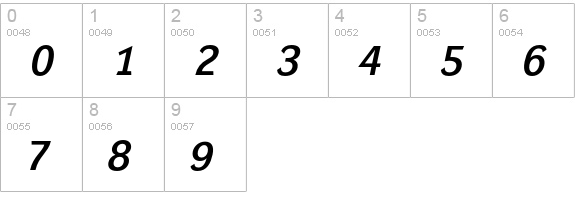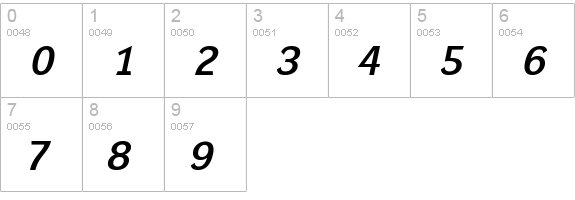
Dynamo Italic D E is a distinctive, italic variant in the Dynamo typeface family \xE2\x80\x94 well suited to design and typography projects.
Introducing Dynamo Italic D E font, a sleek and stylish typeface that exudes modernity and sophistication. With its elegant italic design and clean lines, this font is perfect for adding a touch of elegance to any project. Whether you're designing a logo, creating a poster, or crafting a website, Dynamo Italic D E font will make your text stand out. This versatile font is ideal for a wide range of applications, from branding and marketing materials to editorial projects and more. Its dynamic and energetic appearance will capture the attention of your audience and leave a lasting impression. Best of all, Dynamo Italic D E font is available for free download at FontsMarket.com. So go ahead and give your designs a stylish edge with this beautiful typeface. Download Dynamo Italic D E font today and elevate your projects to the next level.